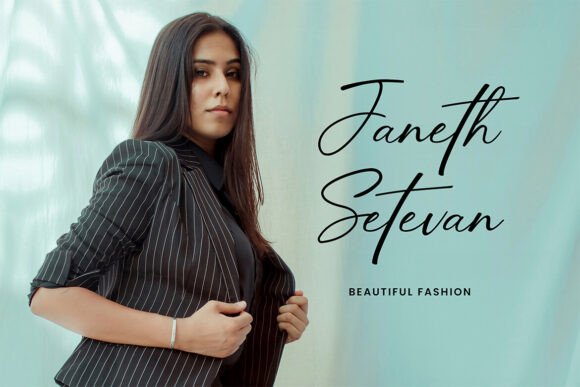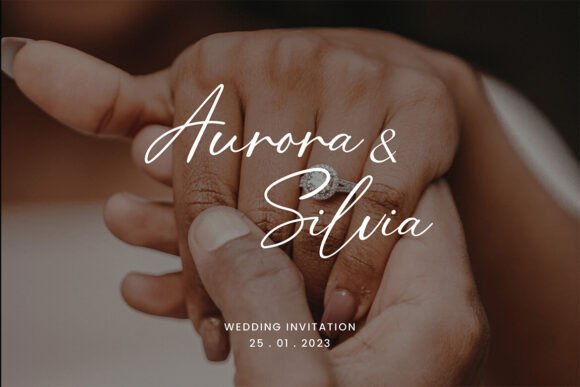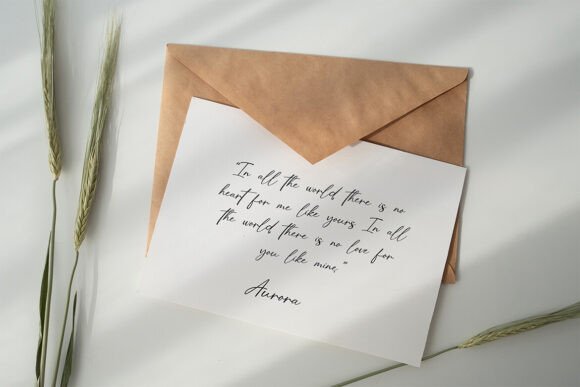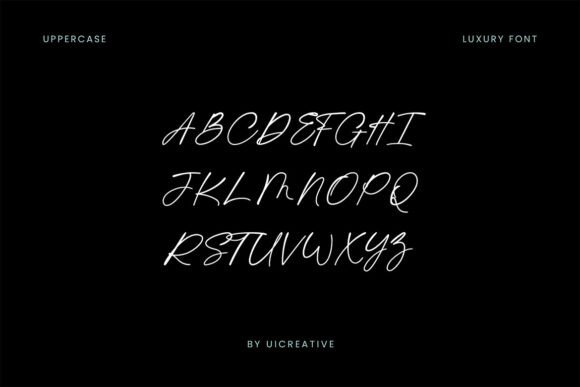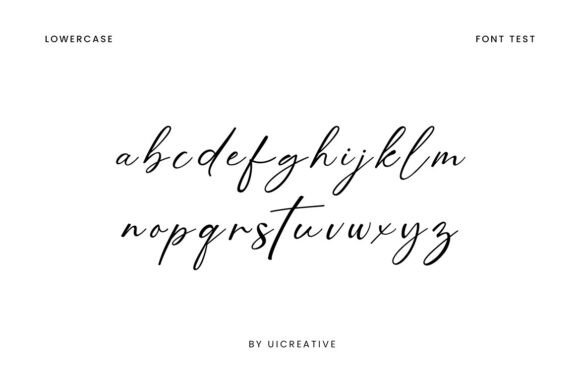
Introducing Anthonia Signature: A Beautifully Script Font for Modern Designers
In the world of typography, a signature font can make all the difference in creating a lasting impression. For designers and crafters looking for a font that exudes elegance, class, and style, Anthonia Signature is an excellent choice. This modern display font is beautifully scripted, making it perfect for a wide range of projects that require a touch of sophistication.
What Makes Anthonia Signature Stand Out?
Anthonia Signature is a versatile font that can be used for various design projects, including signatures, stationery, logos, wedding designs, typography quotes, magazine or book covers, website headers, branding, and more. Its unique blend of modernity and classic script style makes it an ideal choice for designers who want to create stunning visual content.
Elegance and Style for Fashion-Related Designs
One of the standout features of Anthonia Signature is its ability to display both masculine and feminine qualities, making it perfect for fashion-related branding or editorial design. Whether you’re creating a logo for a fashion brand, designing a magazine cover, or crafting a stylish website header, this font is sure to impress. Its elegant and classy feel makes it an excellent choice for designers who want to create a lasting impression.
Key Features of Anthonia Signature Font
- Beautifully Scripted: Anthonia Signature features a stunning script style that adds a touch of elegance to any design project.
- Modern Display Font: This font is designed to make a statement, with a modern twist that sets it apart from traditional script fonts.
- Versatile: Anthonia Signature can be used for a wide range of projects, from signatures and stationery to logos, wedding designs, and more.
- Elegant and Classy: This font exudes sophistication and style, making it perfect for designers who want to create high-end visual content.
- Masculine and Feminine Qualities: Anthonia Signature displays both masculine and feminine qualities, making it an excellent choice for fashion-related branding or editorial design.
How to Use Anthonia Signature Font
Anthonia Signature is an incredibly versatile font that can be used in various design projects. Here are a few ideas to get you started:
- Signatures: Add a touch of elegance to your signatures with Anthonia Signature.
- Stationery: Create stunning stationery designs, including letterheads, business cards, and more.
- Logos: Design a memorable logo for your brand with Anthonia Signature.
- Wedding Designs: Add a touch of sophistication to your wedding designs, including invitations, programs, and more.
- Typography Quotes: Create stunning typography quotes with Anthonia Signature.
- Magazine or Book Covers: Design eye-catching magazine or book covers with this beautiful script font.
- Website Headers: Add a touch of elegance to your website headers with Anthonia Signature.
- Branding: Use this font for branding projects, including packaging, labels, and more.
Anthonia Signature is a beautifully scripted font that is perfect for designers and crafters looking for a modern display font that exudes elegance, class, and style. Its versatility and ability to display both masculine and feminine qualities make it an excellent choice for a wide range of projects, from fashion-related branding to editorial design. With Anthonia Signature, you can create stunning visual content that leaves a lasting impression.